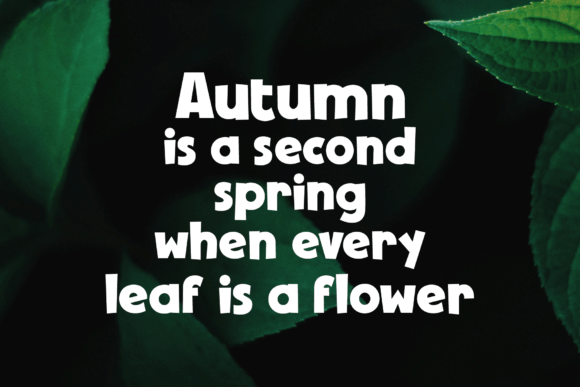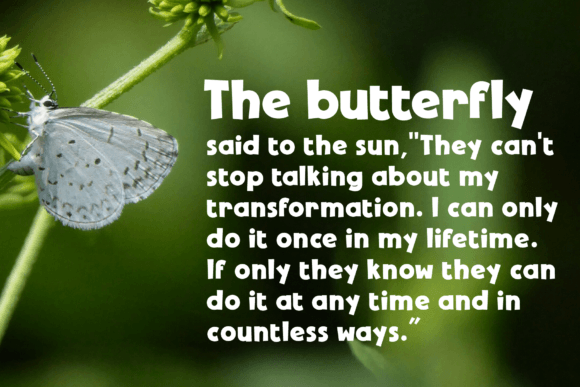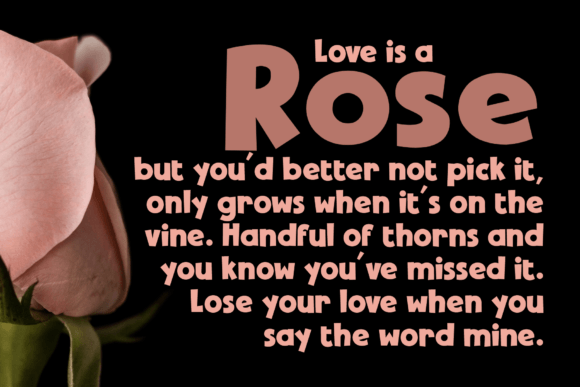
Introduction to Nocky Font
Nocky font is perfect for those of you who want the style of children.
Fonts Made specifically for purposes such as: Kindergarten, Birthday, Kid, Cartoon, Comic, Children, and Playful This Font contains Modern, Elegant, Creative, Professional and Unique Concept.
Key Features of Nocky Font
Why Choose Nocky Font?
Nocky Font offers exceptional quality and versatility, making it a valuable addition to your design toolkit. Whether you’re creating for personal projects or commercial use, Nocky Font delivers professional results.